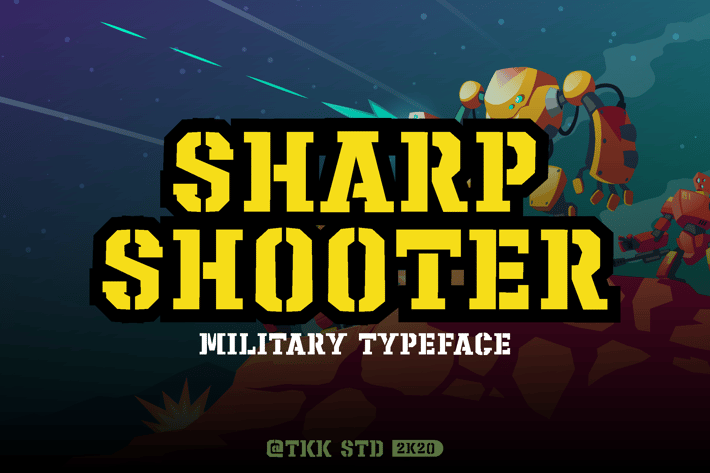
Sharpshooter - Stencil Army Font
Sharpshooter - Military Stencil Font
Sharpshooter is a power-packed slab serif font crafted for designers needing bold titles with a tactical tone. Featuring geometric forms, square serifs, and confident proportions, this all-uppercase typeface feels straight out of a battlefield. Its sharp letterforms and tight structure make it highly legible across posters, video titles, and game covers.
With strong vertical strokes, solid slab edges, and aggressive presence, Sharpshooter is ideal for military posters, war documentaries, combat video games, dystopian branding, or action-packed social media content. Its heavy feel brings cinematic intensity to every design it touches.
All-caps tactical slab serif font
Powerful geometric structure for bold display use
Clean kerning and balanced spacing
Great readability on both digital and print media
Inspired by military lettering and retro war aesthetics